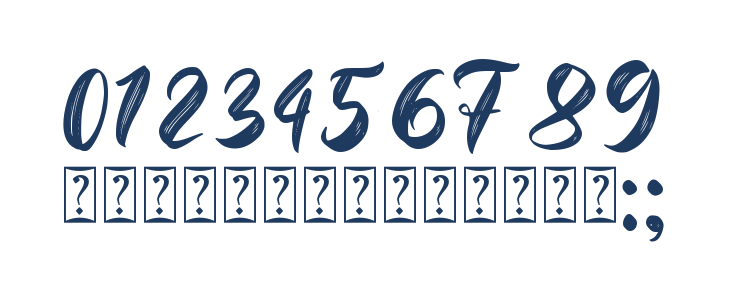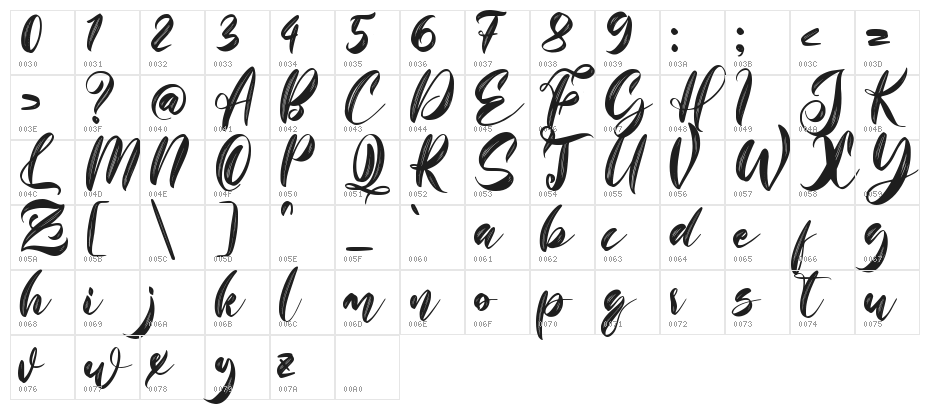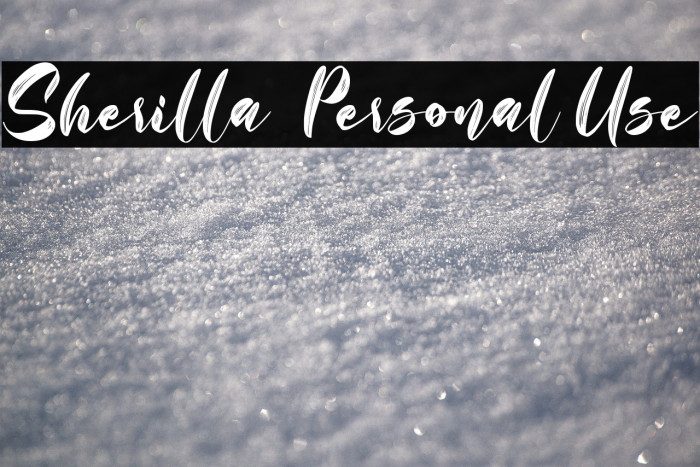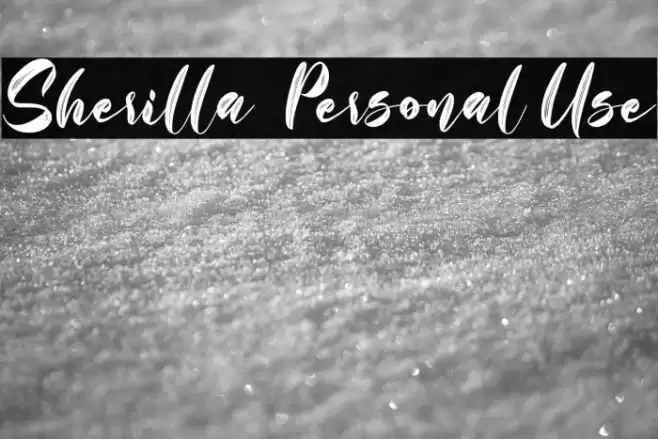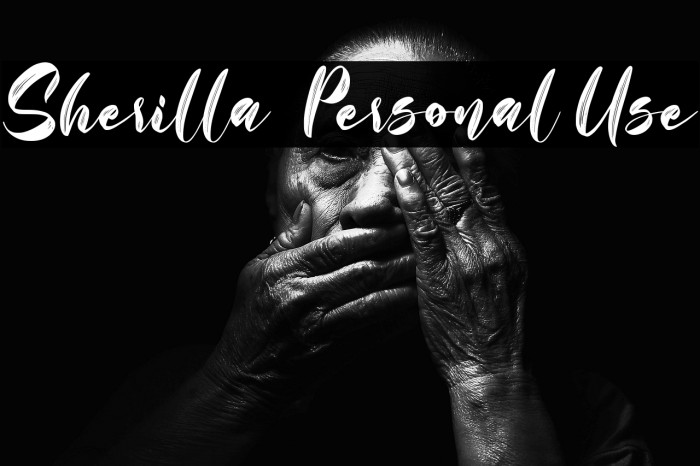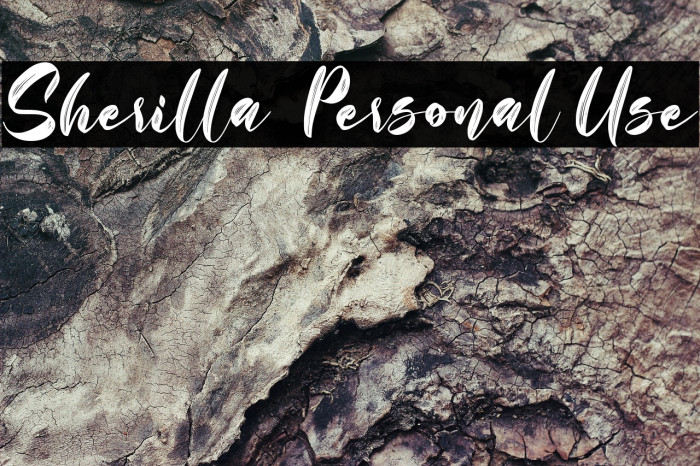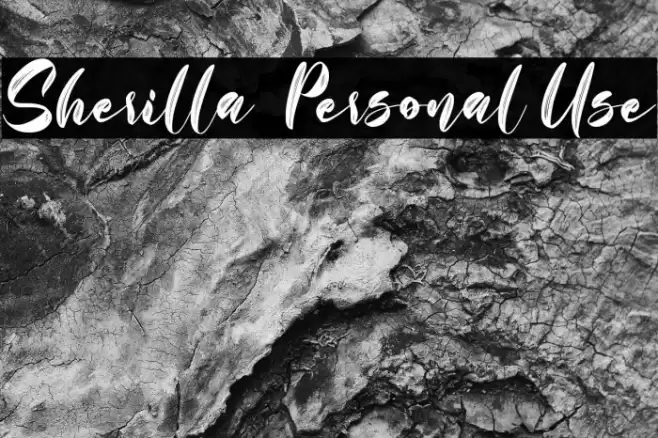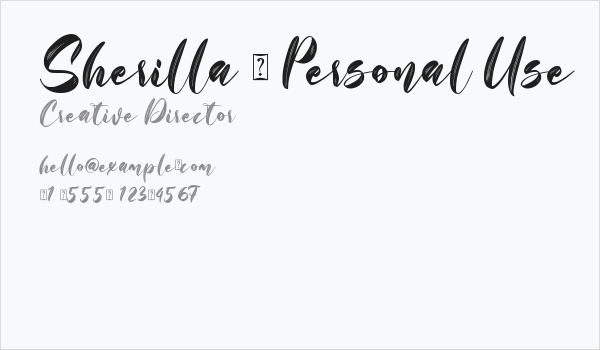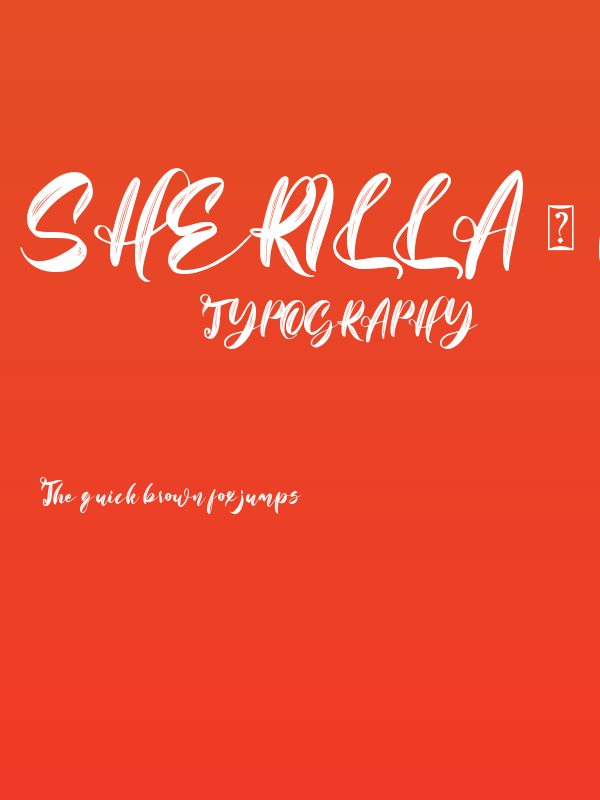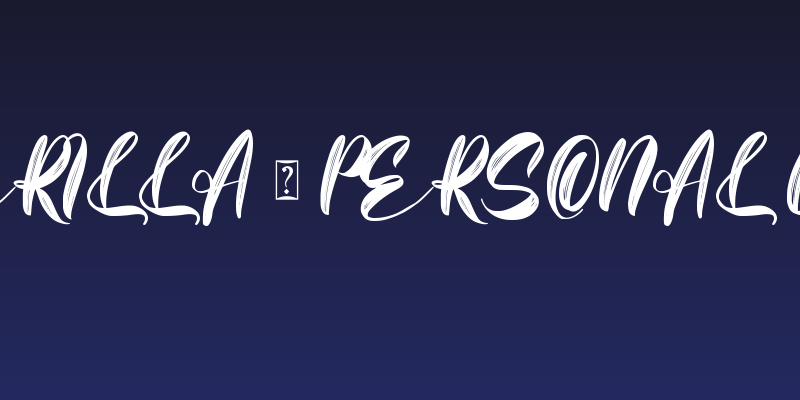
Sherilla - Personal Use Font
Sherilla - Personal Use Description
This font features an elegant, flowing script style with a modern touch. The characters are designed with sweeping curves and flourishes, giving it a sophisticated and artistic appearance. The uppercase letters are bold and striking, while the lowercase letters maintain a consistent flow, enhancing readability. The numbers and special characters are crafted with the same attention to detail, ensuring a cohesive look across all elements. This font's high contrast in stroke thickness adds to its dynamic and expressive nature, making it ideal for creative projects.